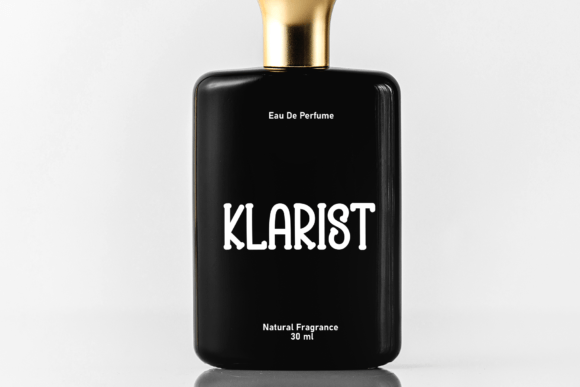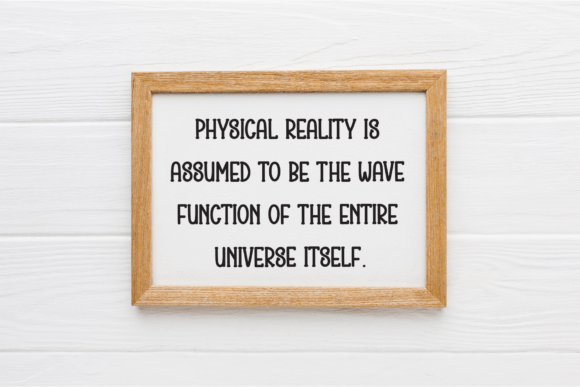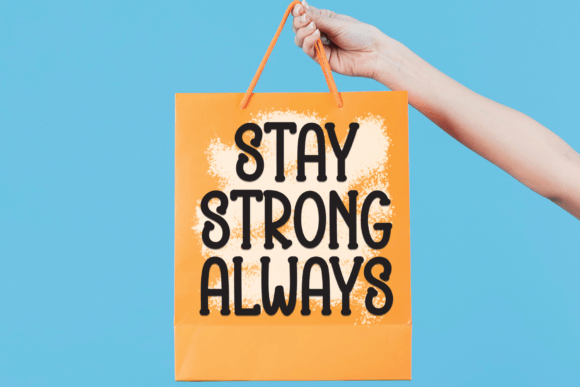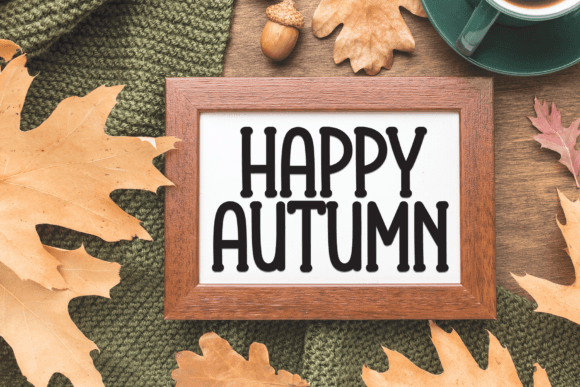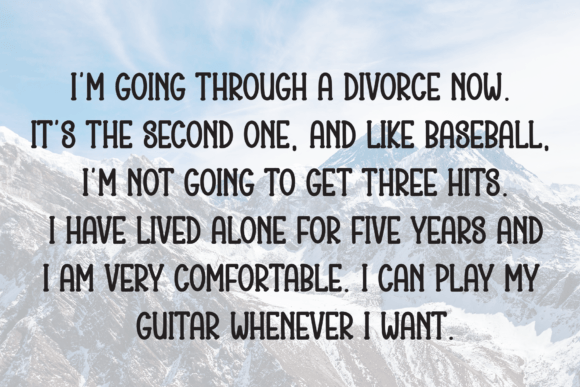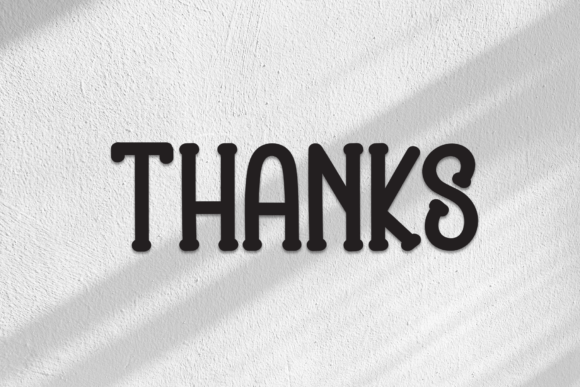
Introduction to Anothing Font
Have you ever sat in front of your computer, staring blankly at a blank canvas, waiting for inspiration to strike? It’s a moment we’ve all been in – the blank page, the empty design space, the nagging feeling that we’re missing something special. But what if that something special was just a click away? For designers and creatives, a high-quality design resource can be the difference between a decent project and a truly exceptional one.
Enter the Anothing Font – a sweet and friendly handwritten font that’s about to become your new go-to design companion. With its natural and unique style, the Anothing Font is the perfect addition to any creative project, from social media graphics to wedding invitations, and everything in between.
Key Features of Anothing Font
- High-quality, professional font suitable for various creative projects, including graphic design, digital art, and publishing.
- Includes a comprehensive character set, covering a wide range of languages and alphabets, making it a versatile design resource.
- Perfect for designers and artists working on creative projects, including posters, flyers, business cards, and more.
Honest Review: Anothing Font
I recently came across Anothing Font while searching for high-quality design resources. As a designer, I’m always on the lookout for unique fonts that can elevate my creative projects.
Here are some things that work well with Anothing Font:
- High-quality design: The font is crisp, clean, and professional-looking.
However, I did encounter some limitations with Anothing Font:
- Limited character set: The font only includes a limited number of characters, which may not be suitable for complex design projects.
- No bold or italic styles: While the font is available in regular weight, there are no bold or italic styles available, which can limit its versatility.
Tips for Getting the Most Out of Anothing Font
Use Anothing Font for headings and titles to add a touch of elegance to your design. Experiment with different font sizes and styles to create a visually appealing design. Also, use Anothing Font in conjunction with other design elements to create a cohesive and professional-looking design.
Anothing Font is perfect for creating high-quality designs for business cards, brochures, and other marketing materials. It’s also great for creating a creative project, such as a logo or a branding identity. Additionally, Anothing Font can be used to create a transparent background, making it ideal for web design and digital art projects.